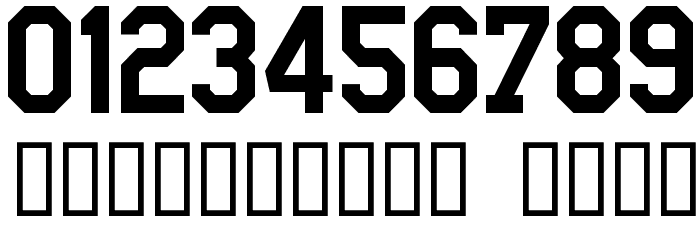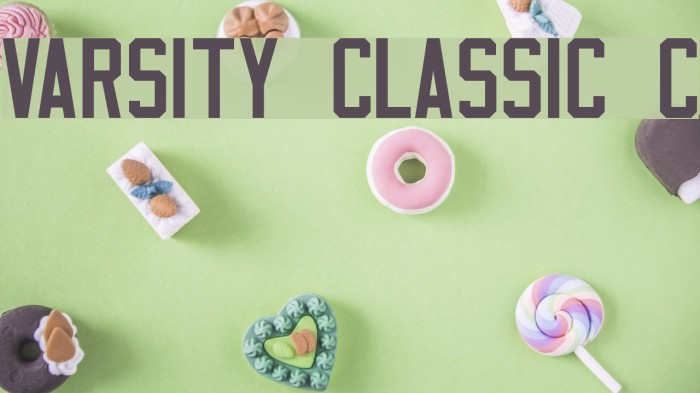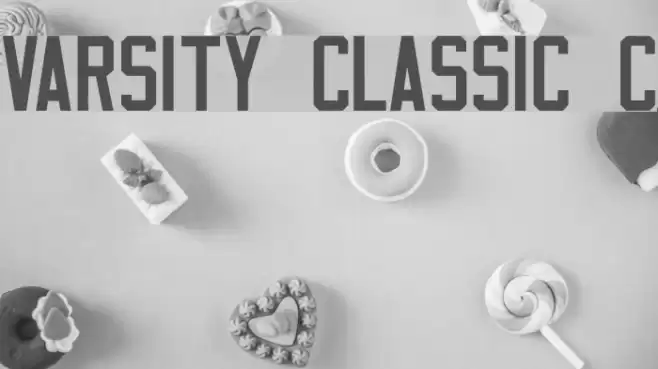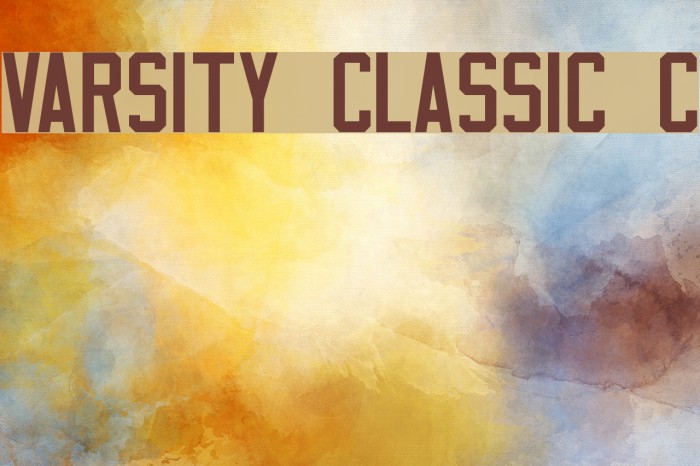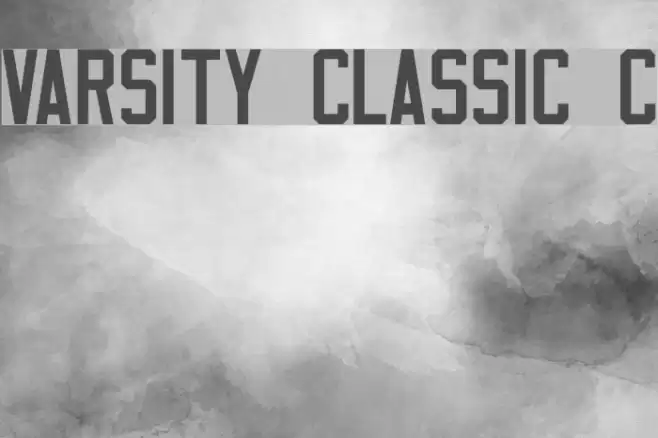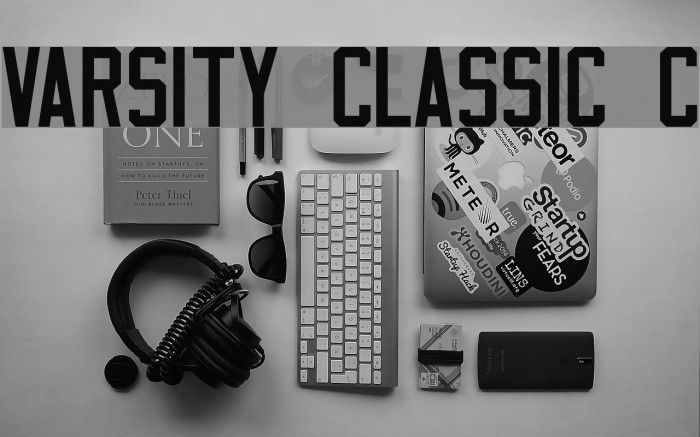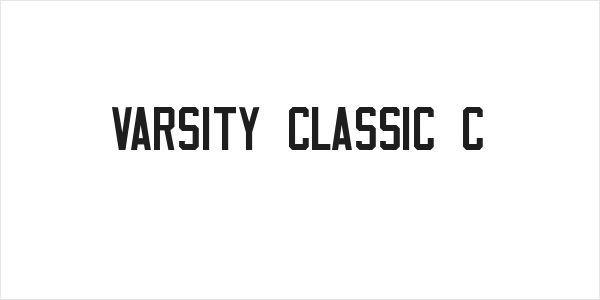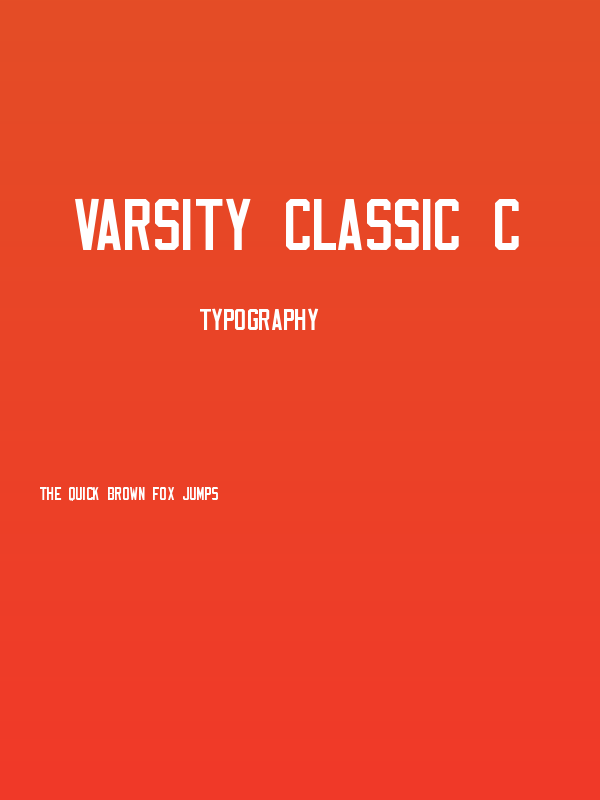
Varsity Classic C Font
Varsity Classic C Description
This font features a bold, blocky style reminiscent of traditional varsity or collegiate lettering. The characters are all uppercase, with a strong geometric structure and sharp angles that give it a distinct, authoritative appearance. The numbers follow the same style, maintaining consistency across the font. The design is clean and straightforward, making it highly legible from a distance. The absence of lowercase letters and special characters suggests a focus on simplicity and impact, ideal for creating a strong visual statement.
| Proposed Projects | Ideal for sports team branding, school spirit merchandise, event posters, and any project requiring a strong, collegiate aesthetic. |